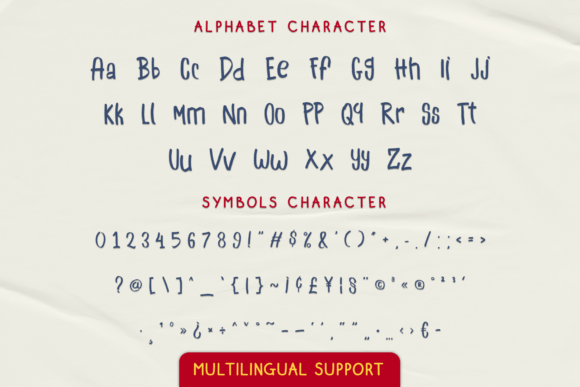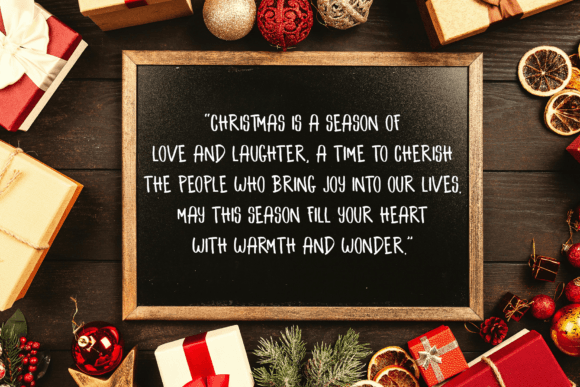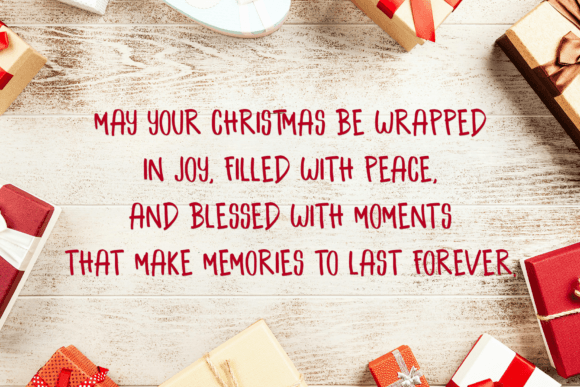
Introduction to Drizzler Font
Introducing Drizzler – the festive, decorative sans font designed to sprinkle a touch of holiday cheer.
With its tall, playful characters and fun, slightly quirky lines, Drizzler brings warmth and joy to your Christmas projects Perfectly suited for holiday cards, gift tags, seasonal banners, and more, this font captures the whimsy of the season.
Key Features of Drizzler Font
Why Choose Drizzler Font?